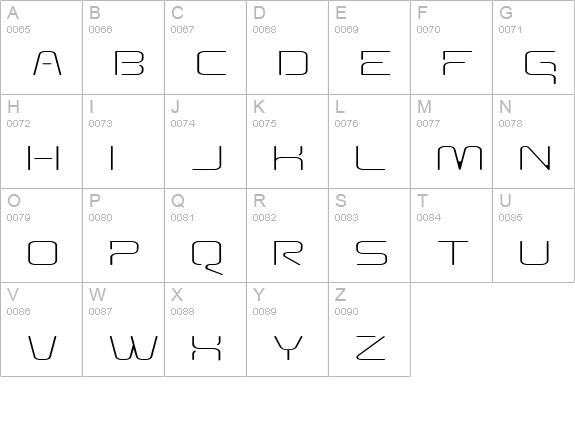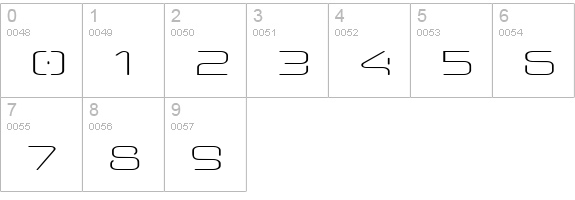
Aunchanted Thin Expanded is a delicate, low-contrast, extended-width variant in the Aunchanted typeface family \xE2\x80\x94 well suited to fashion editorial, minimal branding, and high-contrast display.
Aunchanted Thin Expanded font is a modern and sleek typeface that exudes elegance and sophistication. Its thin and elongated design adds a touch of refinement to any project, making it perfect for branding, headlines, and more. The font features clean lines and a unique flair that sets it apart from traditional fonts. Moreover, Aunchanted Thin Expanded font is not only stylish but also versatile, making it suitable for a wide range of design purposes. Whether you're creating a logo, poster, or website, this font is sure to make a statement. The best part is that Aunchanted Thin Expanded font is completely free to download at FontsMarket.com. So, you can easily incorporate this beautiful font into your projects without any cost. Don't miss out on the opportunity to enhance your designs with this stunning typeface!